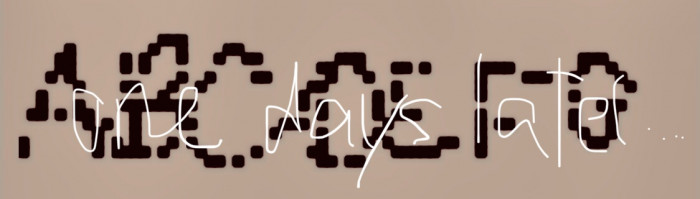
very cool dotted style
I thought that the people of the future may not have all the technological excesses or a lot of free time that we have, they will not work for a long time to create fonts and this approach to creating really will be in the future. Won't bother on creating "beautiful and unique" fonts, and will program them as in FONTSTRUXIUS by TH3_C0N-MAN. And fonts like this are filled with life and the feeling of a moment. And what the other participants did, including me, was just a representation of the future from the past.
So it doesn't matter who wins. The main thing is what we will do tomorrow with what we have received.
one days later....by no win 4u